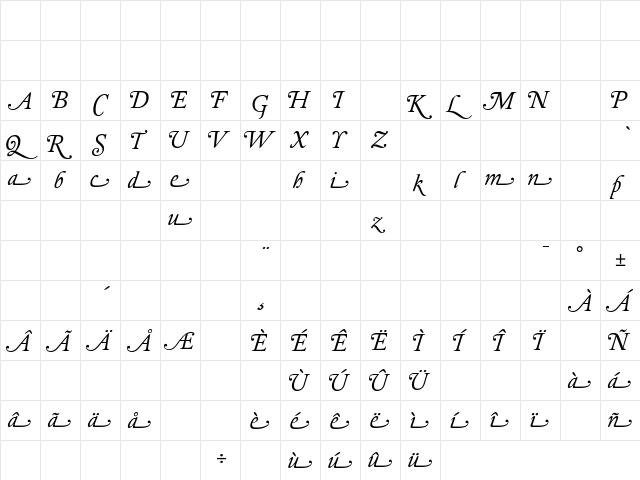
Elzevir Dtl Swash Italic Regular
Design Context for Elzevir Dtl Swash Italic Typeface
Elzevir Dtl Swash Italic brings a calligraphic fluidity to the page — its connecting strokes and expressive curves give it an unmistakably human quality.